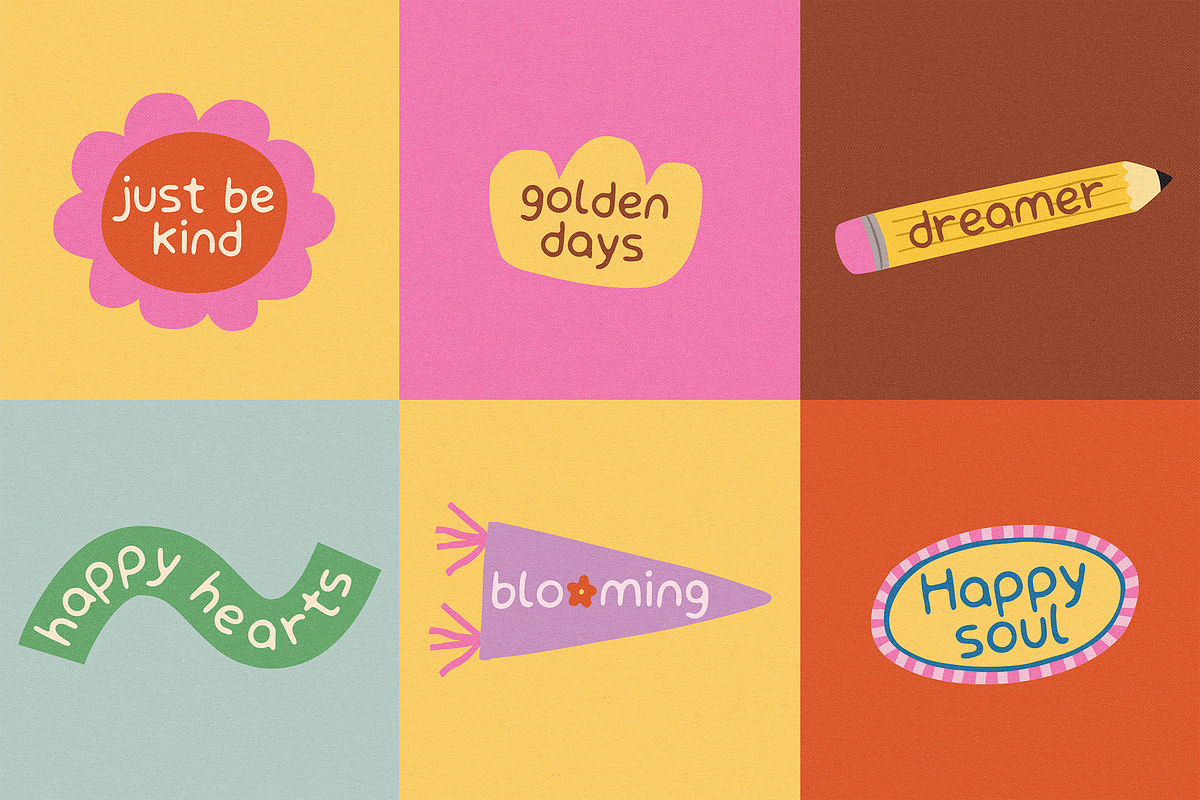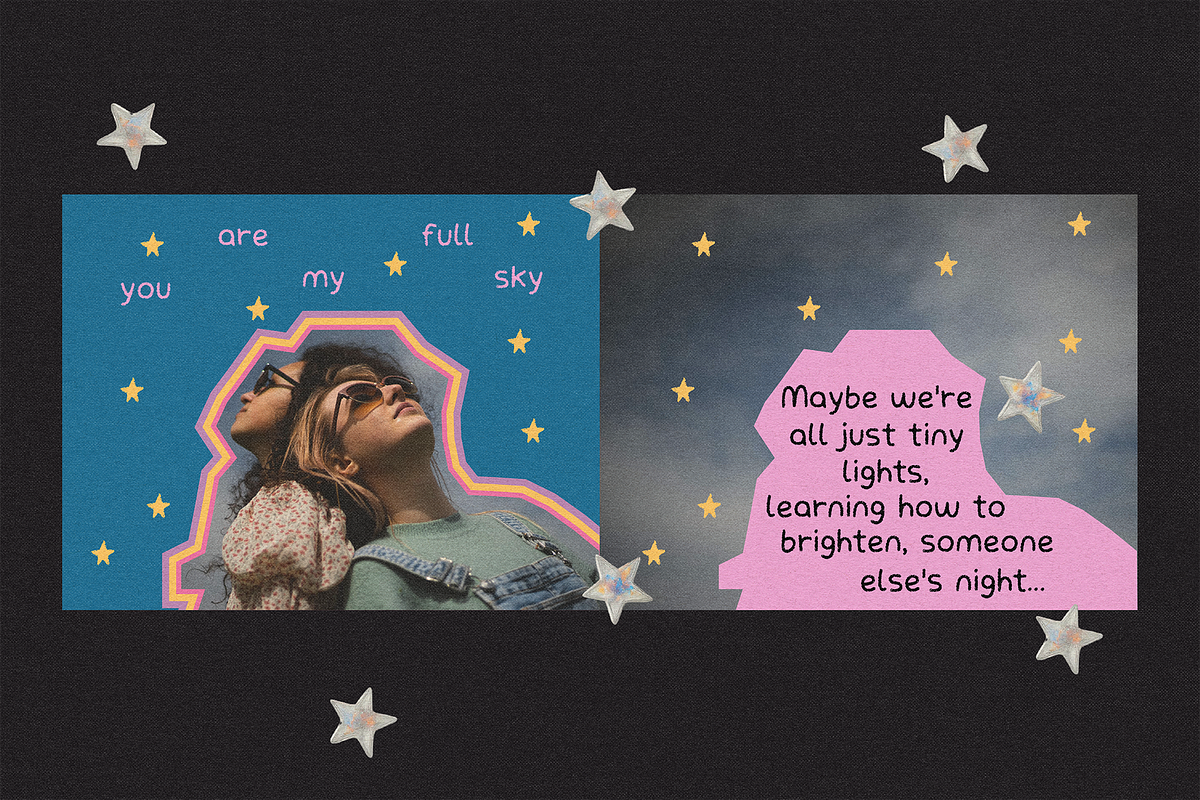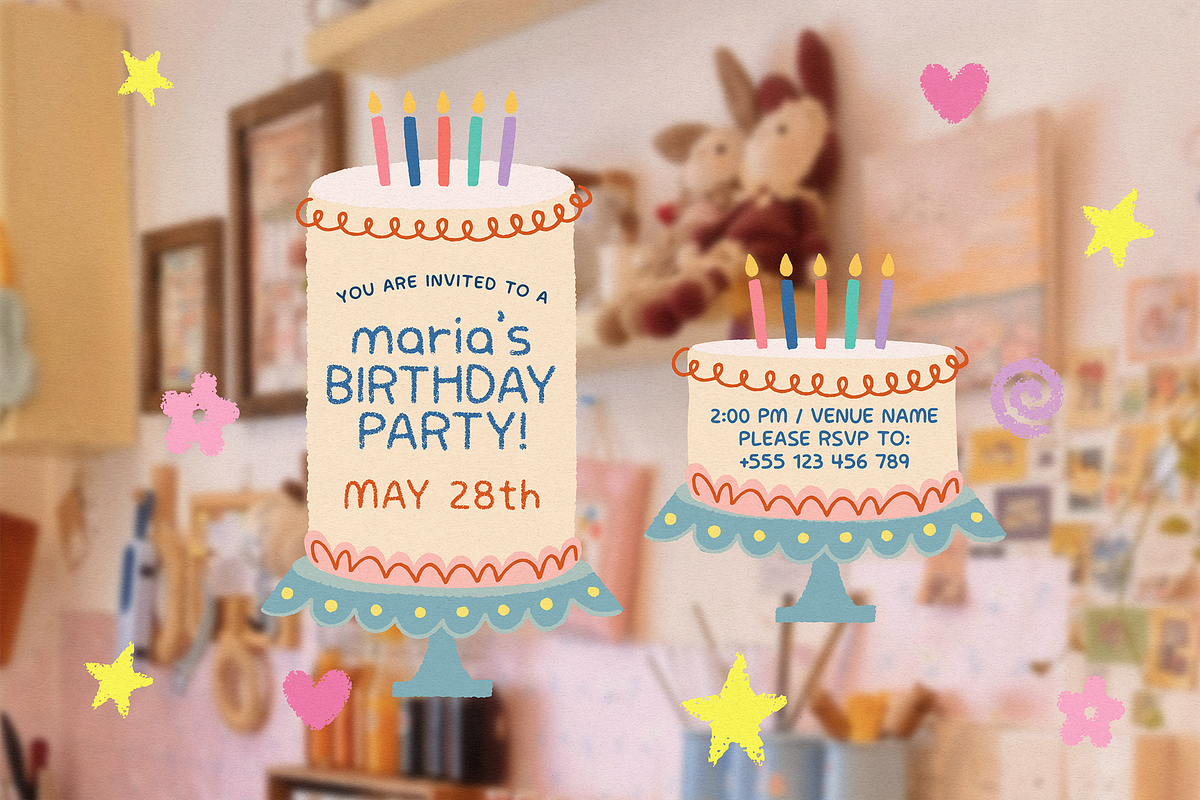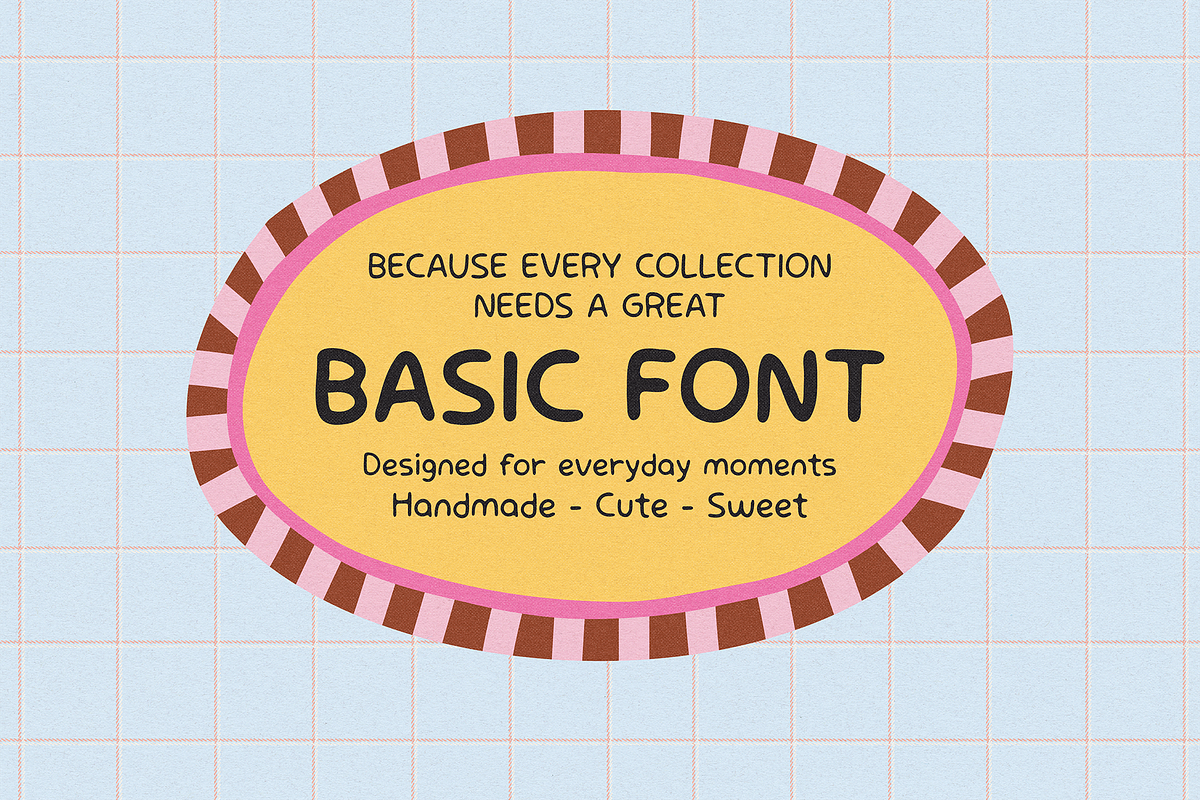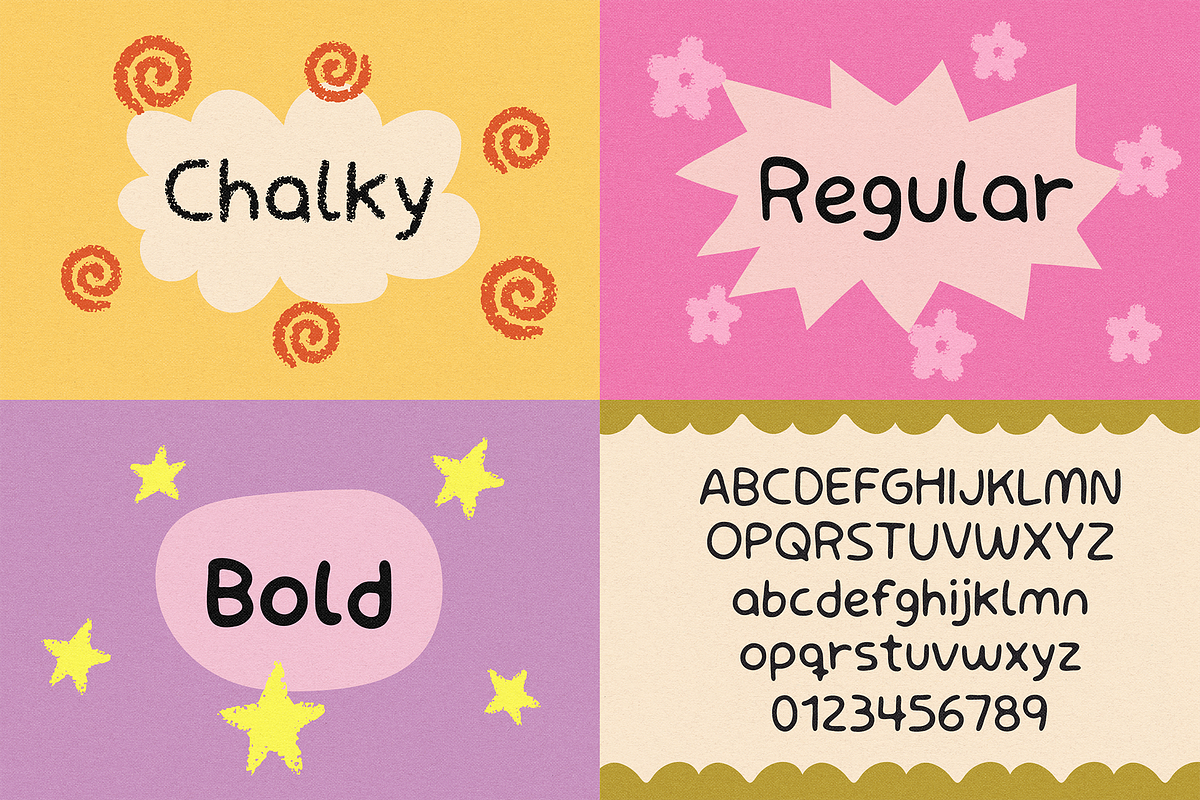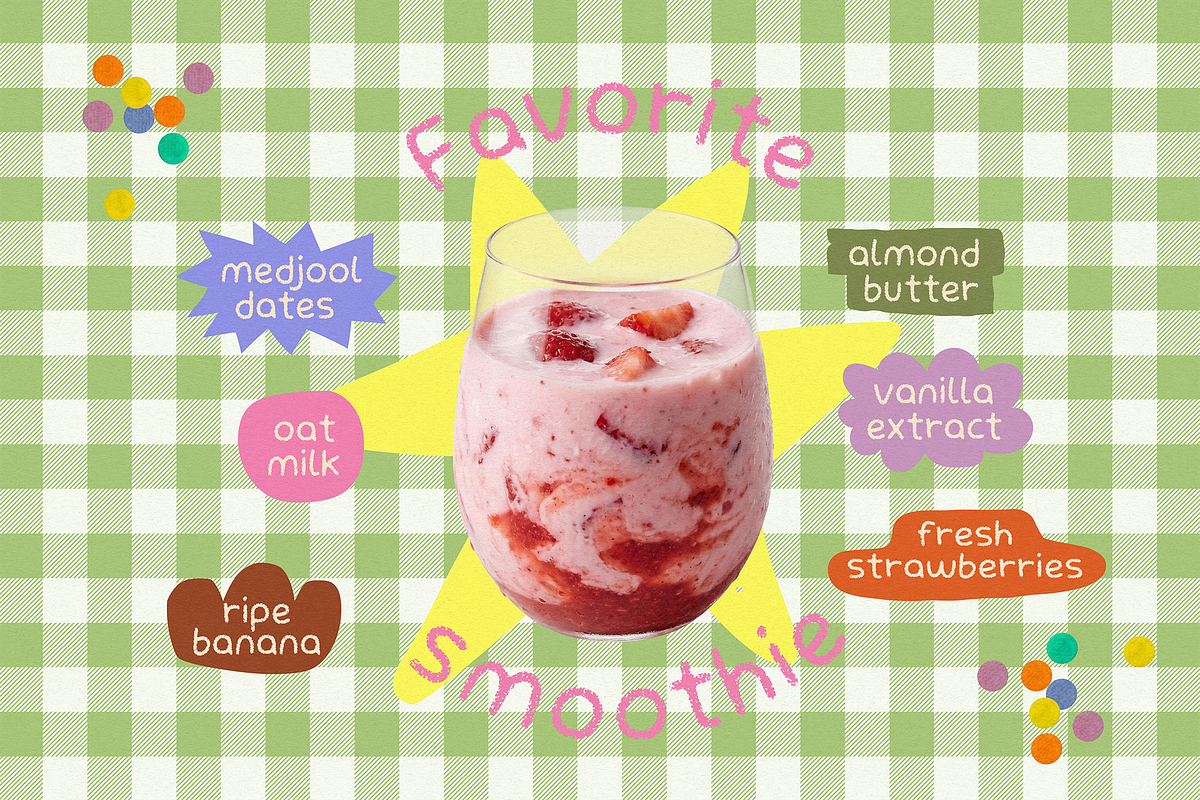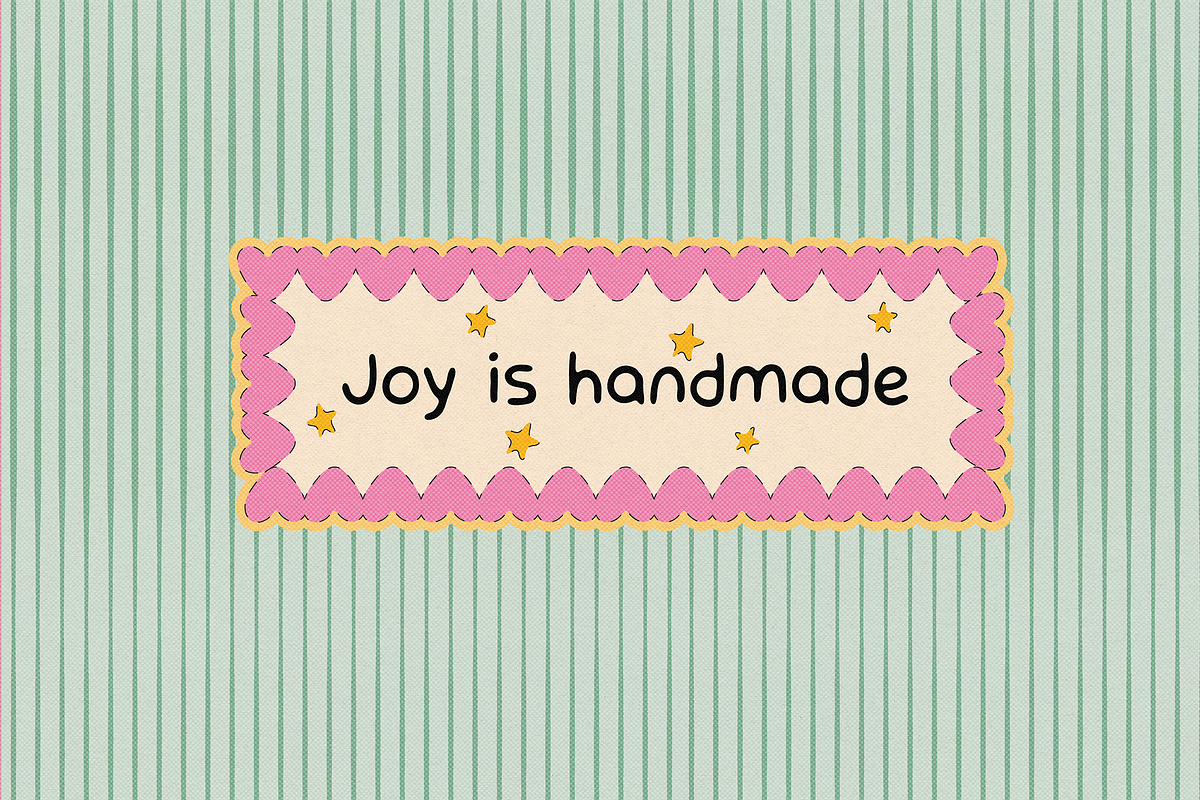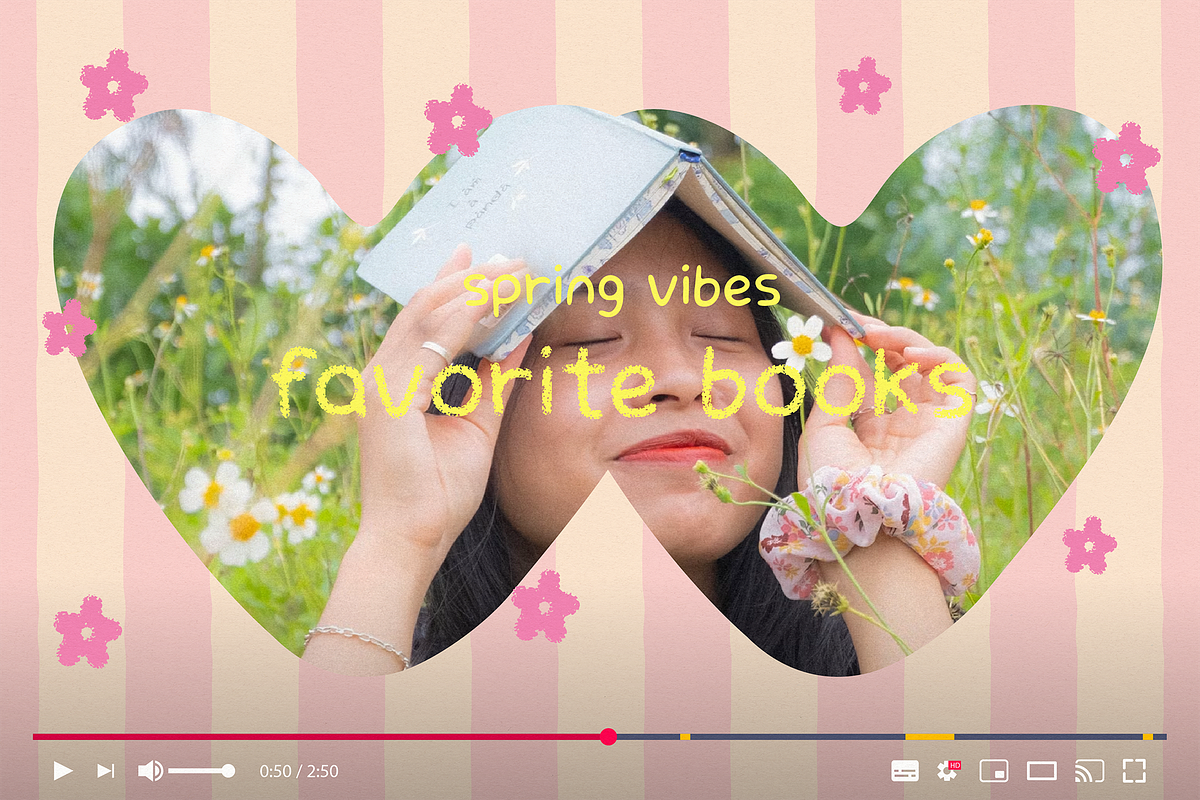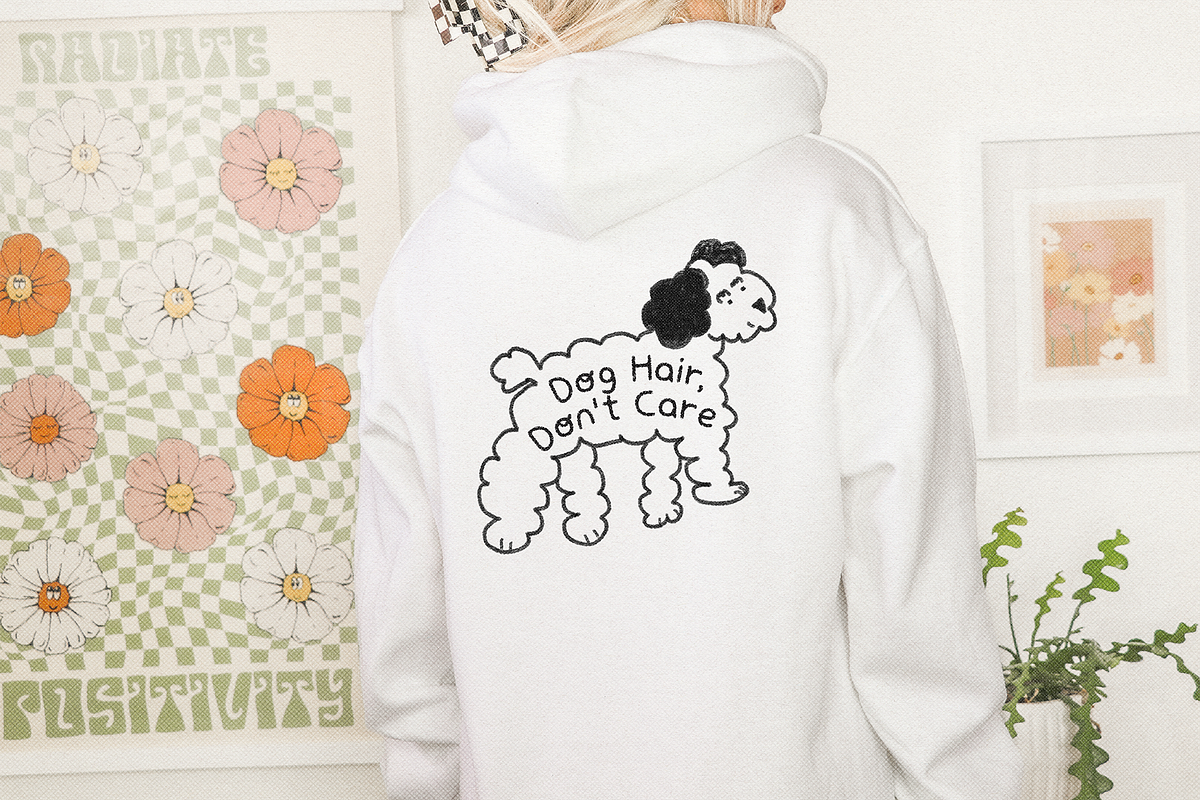
WONDER NOTES | CUTE EVERYDAY FONT
A simple handwritten font you'll reach for again and again
Wonder Notes is a cute handwritten font designed to feel natural, friendly, and effortless. Includes a clean everyday version plus a charming chalk style, making it perfect for planners, journals, worksheets, social media, classroom resources, stickers, and cozy creative projects.
Sometimes the simplest fonts become the ones you use the most! :)